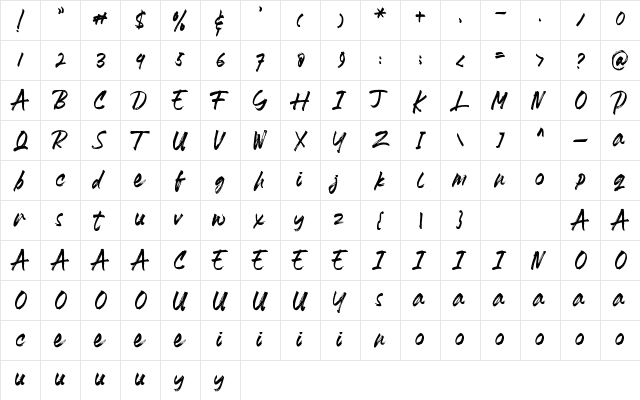
Heydhar Regular
Design Context for Heydhar Typeface
Heydhar is a composed and adaptable typeface that performs quietly and consistently across a wide range of design contexts.